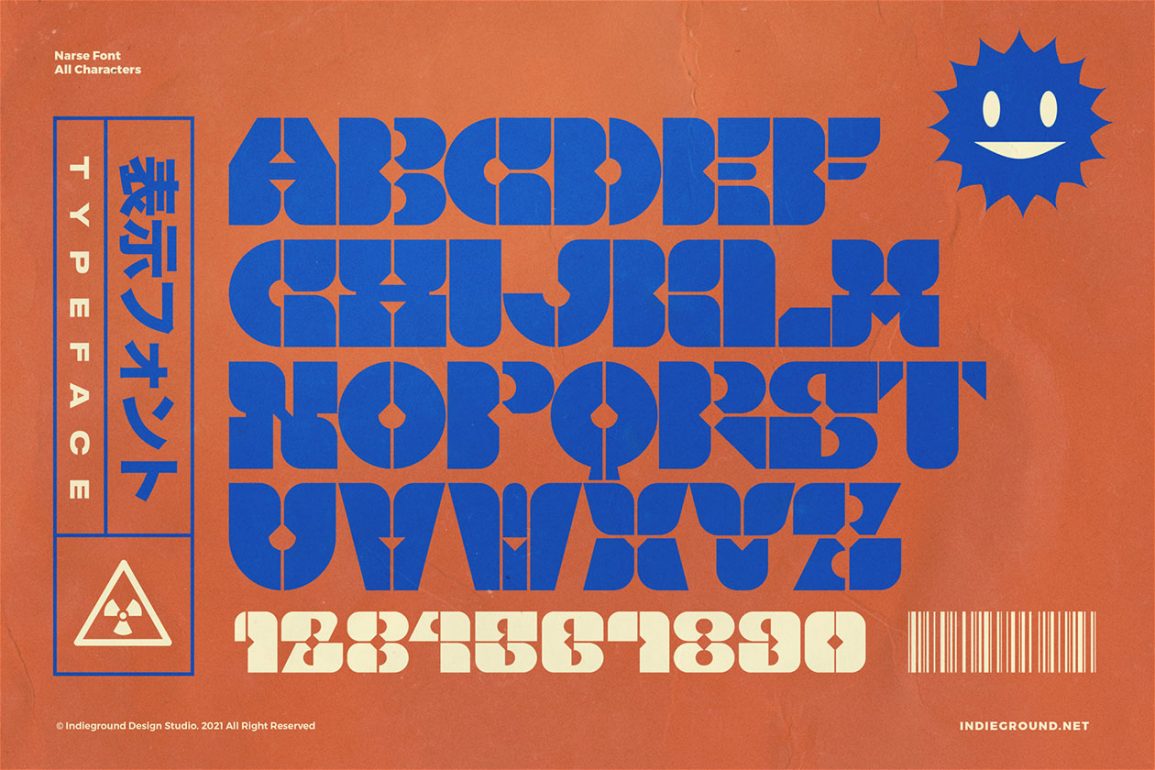
This shortened and summarized display typeface Narse Free Font has been made by the Indieground Tea. This font is perfect for headings and heavy titles. It gives an iconic and amazing style to all kinds of typography. The font demo is free for personal use only. But you can buy the regular commercial version which includes the full characters set presented in the preview.